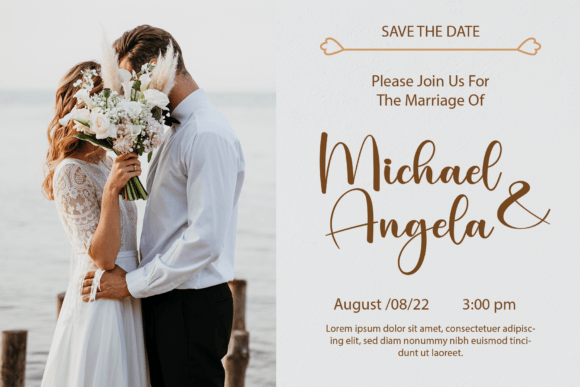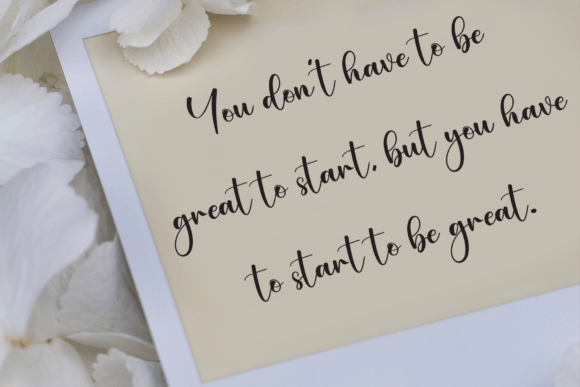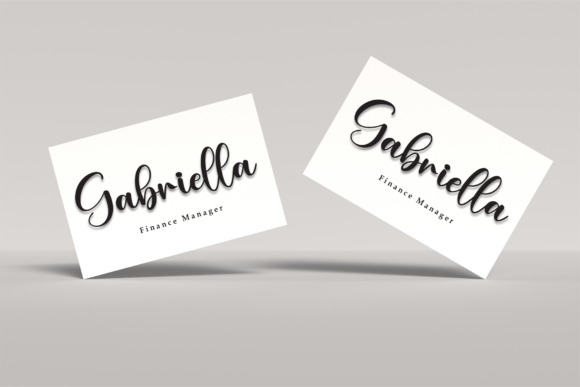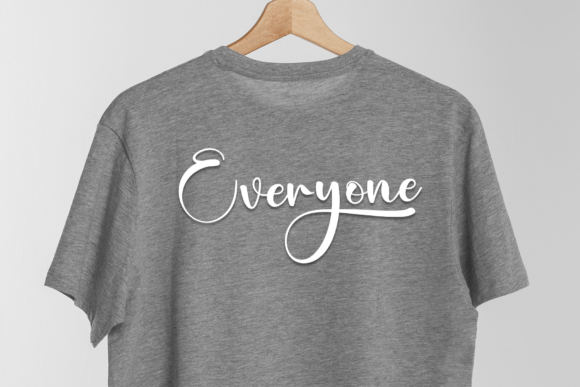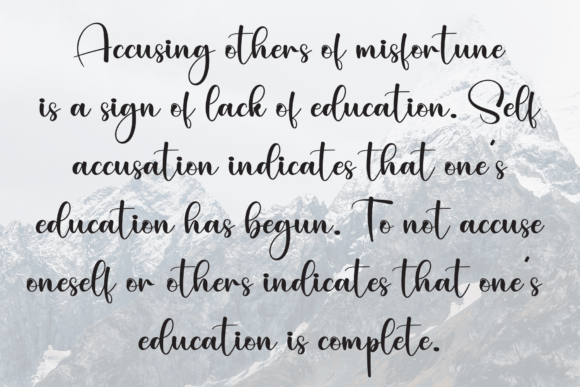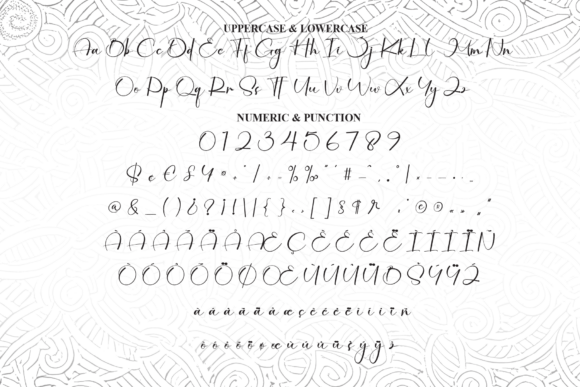
Introducing Engrave Font: The Perfect Handwritten Script for Festive Designs
Are you looking for a font that can add a personal and festive touch to your designs? Look no further than Engrave Font, a charming handwritten script font that’s perfect for holiday cards, invitations, and seasonal projects. With its flowing, elegant curves, Engrave Font gives a warm, joyful feel that’s sure to delight your audience.
What Makes Engrave Font So Special?
Engrave Font is a unique and versatile font that’s designed to bring a touch of elegance and sophistication to your designs. Its handwritten script style gives it a personal and intimate feel, making it perfect for projects that require a human touch. Whether you’re creating holiday cards, invitations, or seasonal projects, Engrave Font is the perfect choice.
Key Features of Engrave Font
- Handwritten Script Style: Engrave Font features a beautiful handwritten script style that’s perfect for adding a personal touch to your designs.
- Elegant Curves: The font’s flowing, elegant curves give it a warm, joyful feel that’s perfect for festive designs.
- Versatile: Engrave Font is versatile and can be used for a wide range of projects, from holiday cards and invitations to seasonal projects and more.
- Easy to Read: Despite its elegant and cursive style, Engrave Font is easy to read, making it perfect for designs that require a clear and legible font.
Uses for Engrave Font
Engrave Font is perfect for a wide range of design projects, including:
- Holiday Cards: Add a personal and festive touch to your holiday cards with Engrave Font.
- Invitations: Use Engrave Font to create beautiful and elegant invitations for weddings, parties, and other special events.
- Seasonal Projects: Engrave Font is perfect for seasonal projects, such as Christmas, Halloween, or Easter designs.
- Stationery: Use Engrave Font to create beautiful and elegant stationery, including letterheads, notecards, and more.
Tips for Using Engrave Font
Here are some tips for using Engrave Font in your designs:
- Use it with a festive color scheme: Engrave Font looks great with festive color schemes, such as red and green for Christmas or orange and black for Halloween.
- Pair it with a simple background: Engrave Font is elegant and sophisticated, so pair it with a simple background to let it shine.
- Experiment with different sizes: Engrave Font looks great in a variety of sizes, from large and bold to small and delicate.
- Use it with other fonts: Engrave Font can be paired with other fonts to create a unique and interesting design.
Engrave Font is a charming handwritten script font that’s perfect for adding a personal and festive touch to your designs. With its flowing, elegant curves and versatile style, it’s ideal for holiday cards, invitations, and seasonal projects. Whether you’re a designer or a crafter, Engrave Font is a great addition to your font collection.